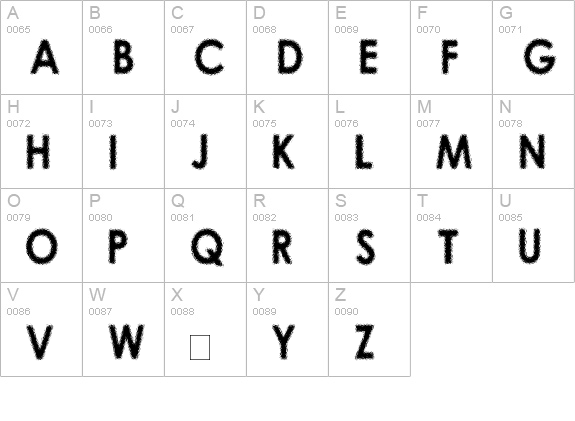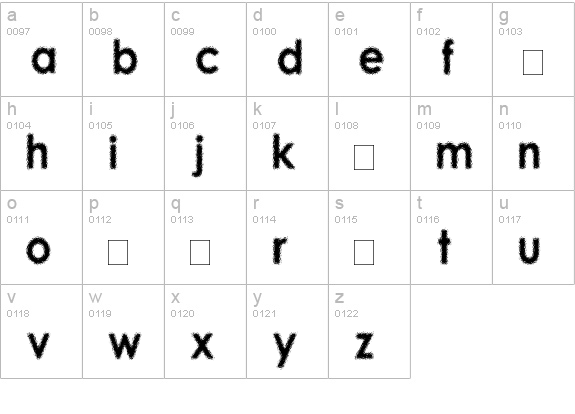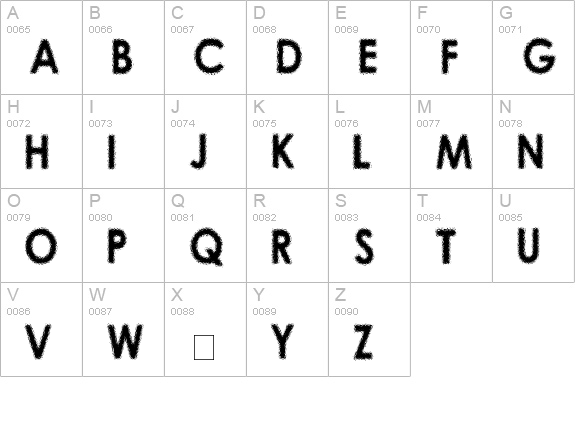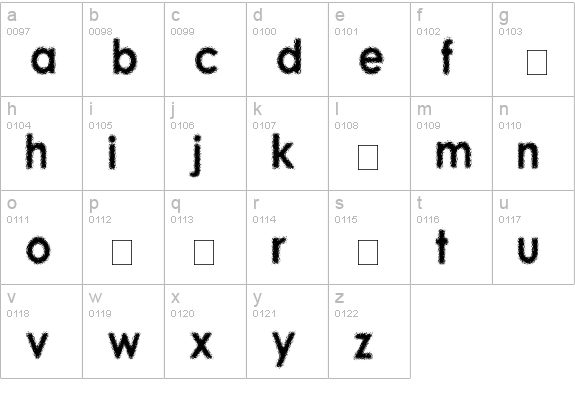
01-01-00 Font Details
The 01-01-00 font is a modern and stylish typeface that exudes elegance and sophistication. Its sleek lines and unique design make it perfect for a wide range of projects, from branding to editorial design. This font offers a perfect balance between classic and contemporary styles, making it versatile for various design purposes. What's even better is that the 01-01-00 font is freely available to download at FontsMarket.com. You can easily access this stunning typeface and add a touch of sophistication to your projects without any cost. Don't miss out on the opportunity to enhance your designs with this elegant and timeless font. Download the 01-01-00 font today and elevate your design game!